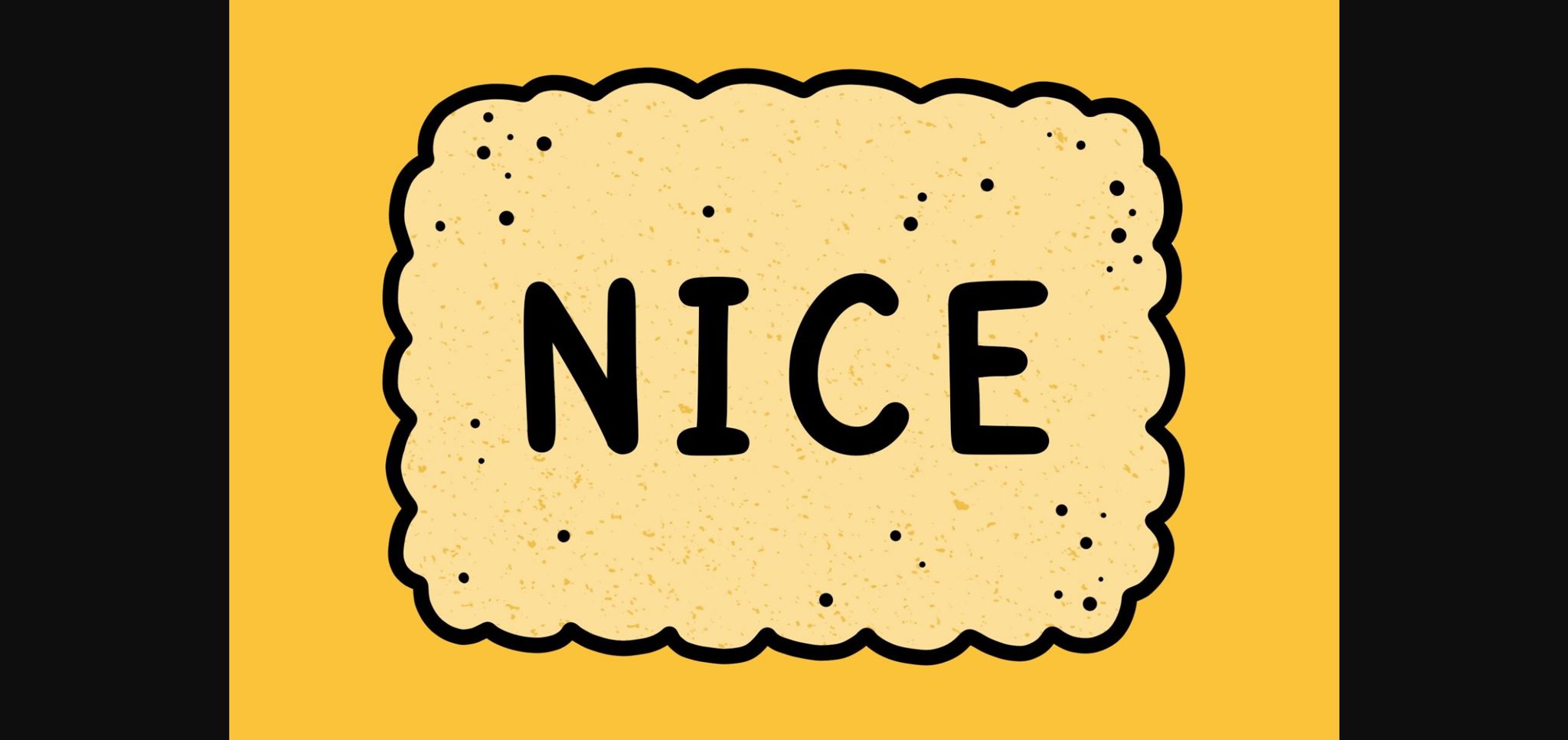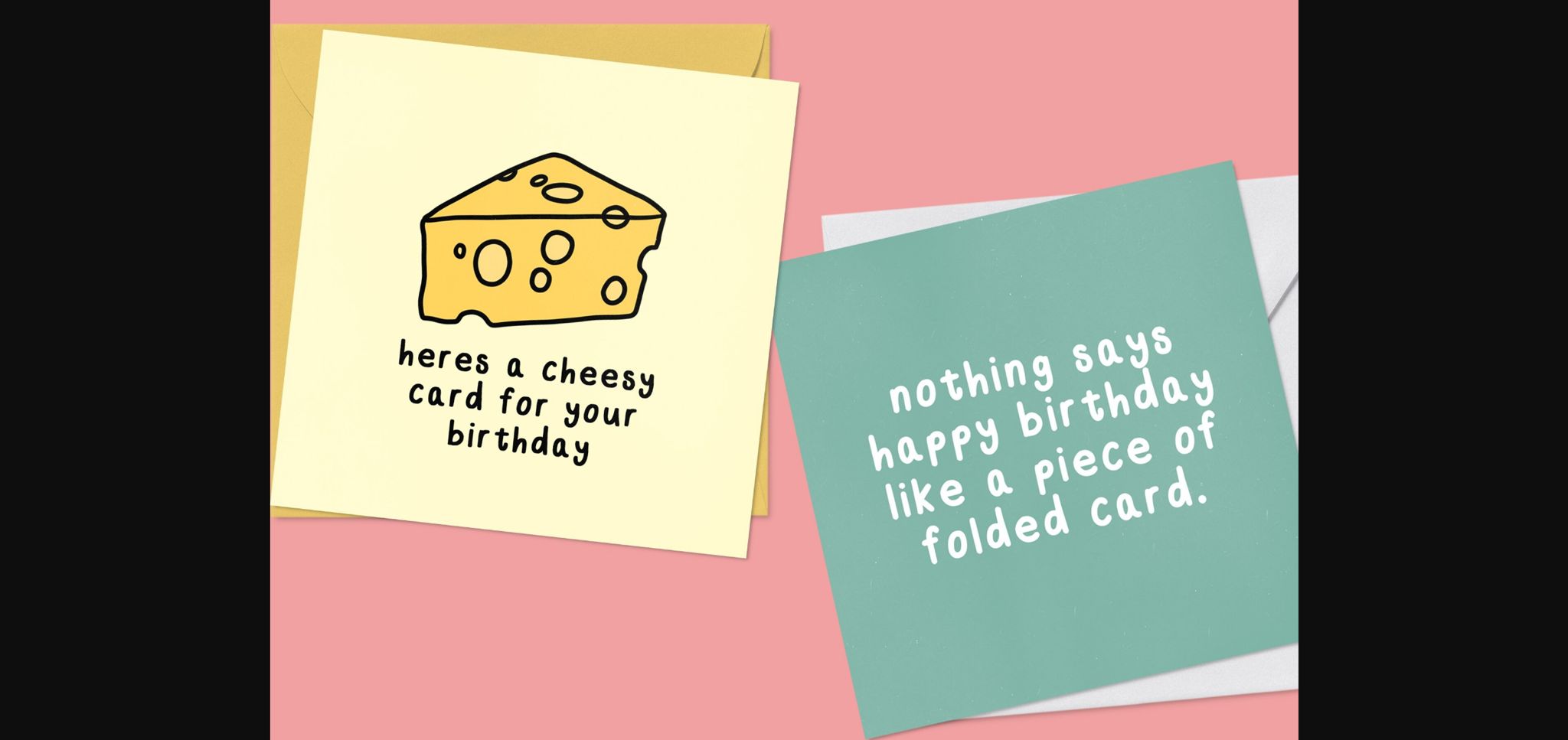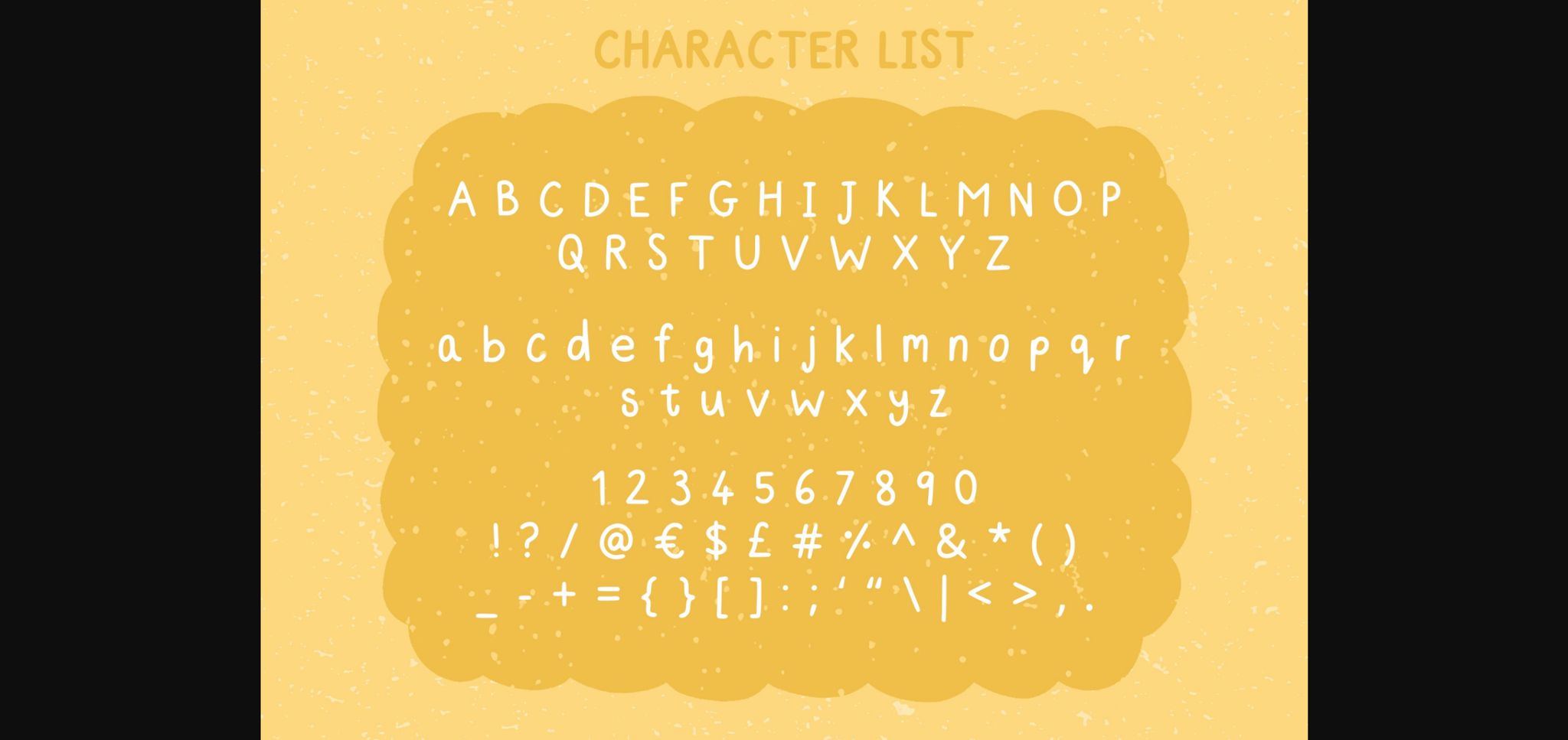
About Nice Font
Nice is a simple quirky child-like handwriting typeface perfect for any fun quirky design work! This font can be used for anything such as T-shirt designs, phone cases, greeting cards, invitations, mugs and so much more! Get creative!